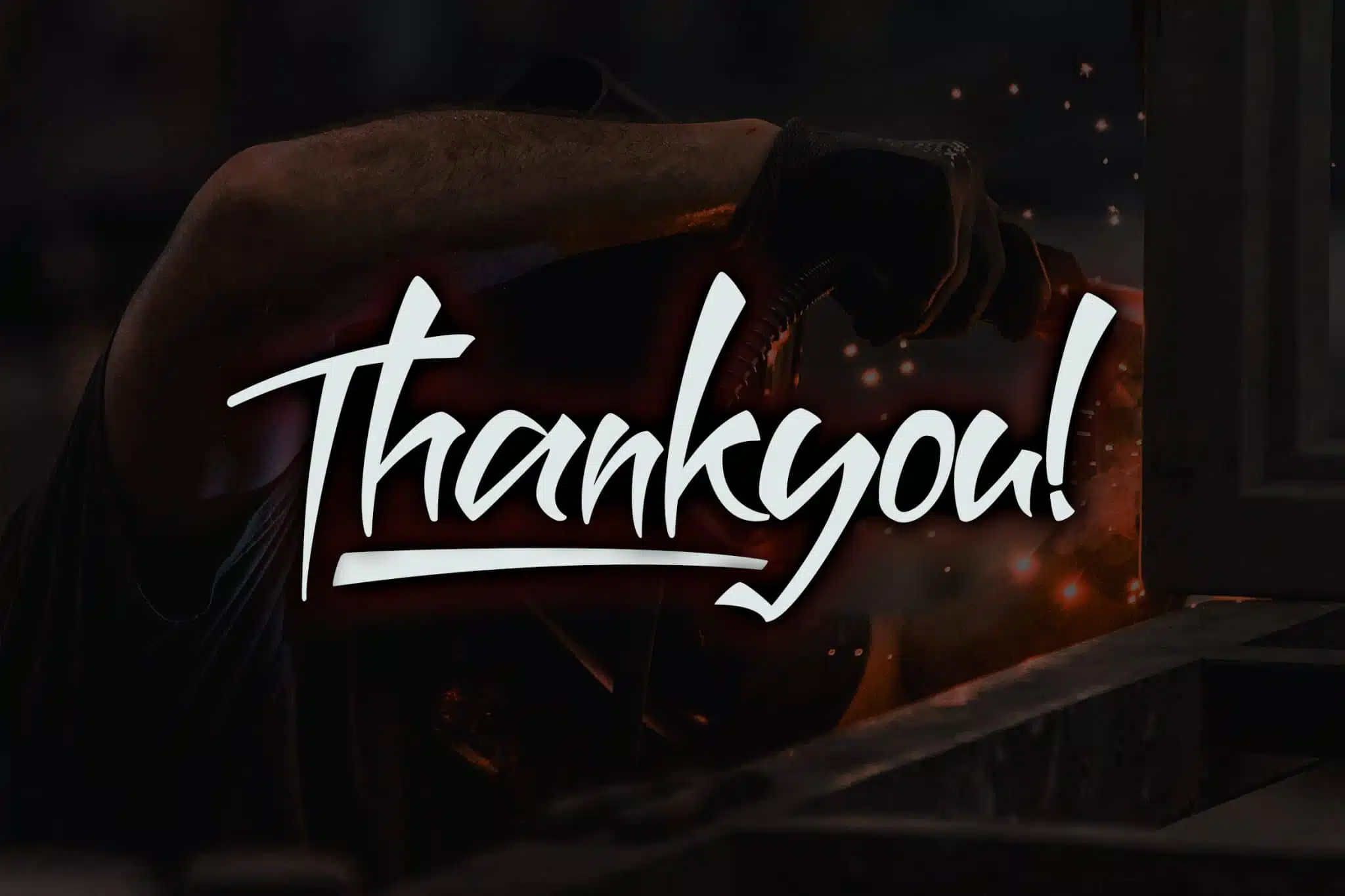
Kaladurga is hand-drawn brush script font. It has vintage, elegant, old school, classy, and cool. It’s a great font for fashion, apparel projects, signature, album cover, logo, branding, magazine, social media, & advertisements, but also works great for other projects.